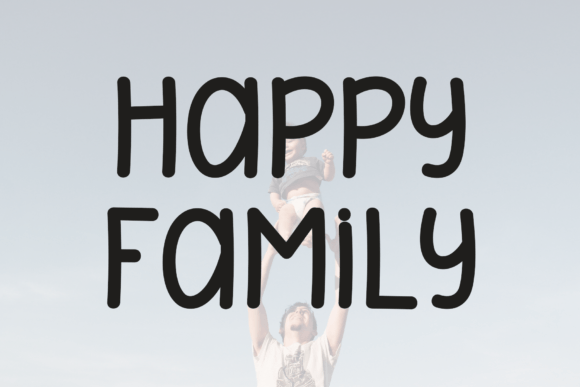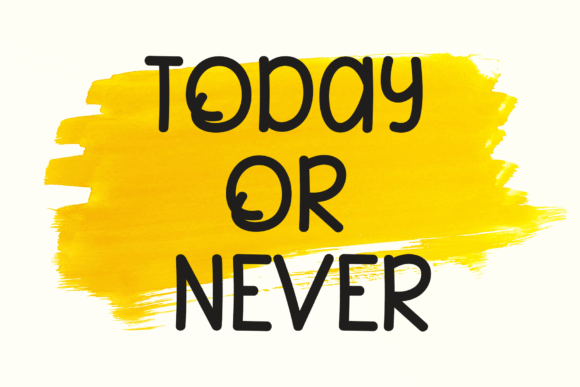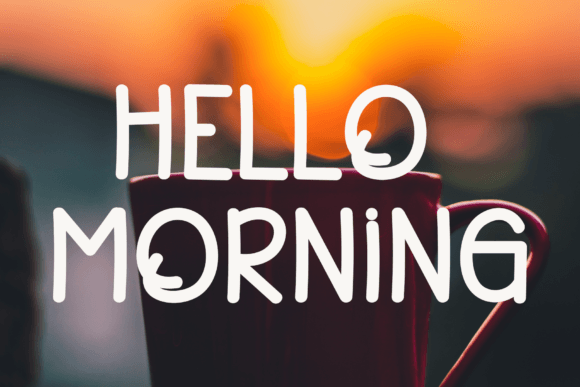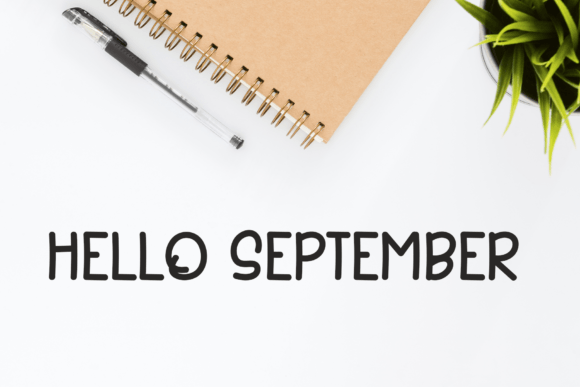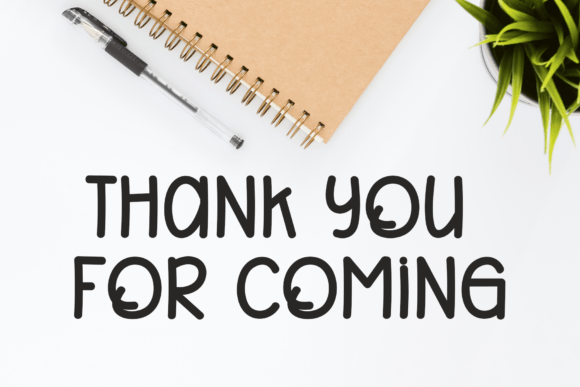
Barbeque Font
Introducing Barbeque Font
The Barbeque Font is a fun and casual handwritten typeface celebrated for its versatility and suitability for a wide range of design ideas. This font offers a playful and adaptable option that can bring a sense of fun and informality to your creative projects. Its charm lies in its casual and relaxed appearance, making it a font that can easily infuse a sense of playfulness and informality into your designs.
Why Choose This Typeface?
• Fun and Casual: Barbeque adds a touch of whimsy to your designs, making it suitable for greeting cards, posters, social media graphics, logos, and more.
• Versatile Usage: This font provides a visually captivating choice for various creative endeavors, allowing you to infuse your designs with joy and creativity.
Applications of Barbeque
• Greeting Cards: Use this font to create engaging greeting cards that capture attention.
• Posters: Enhance your posters with a playful style that conveys warmth.
• Social Media Graphics: Perfect for adding a casual script aesthetic to social media posts and other creative projects.
The Impact of Using Barbeque
This font elevates your designs by making them visually captivating and memorable. It becomes a reliable tool for designers seeking to create projects that stand out with playfulness. Its balanced form ensures your designs are both lively and captivating.
The Value It Brings
This typeface excels in combining contemporary design aesthetics with casual elegance. By choosing Barbeque, you ensure your designs are not only visually appealing but also engaging and unique.
This font is also ideal for various creative projects beyond traditional uses. It can enhance digital designs with its cheerful flair, making it suitable for websites, brochures, or mobile interfaces. The Barbeque Font adapts well to different screen sizes while maintaining its charm. As design trends evolve, this font remains relevant due to its timeless appeal, balancing style with functionality effectively.